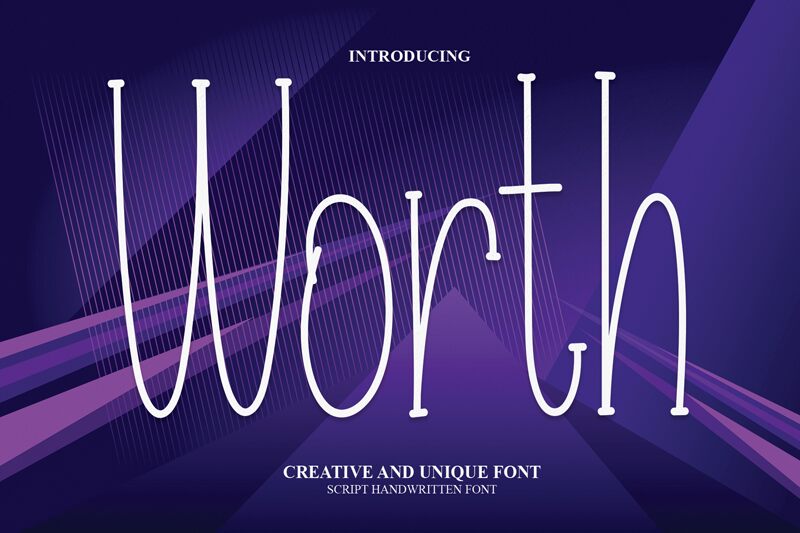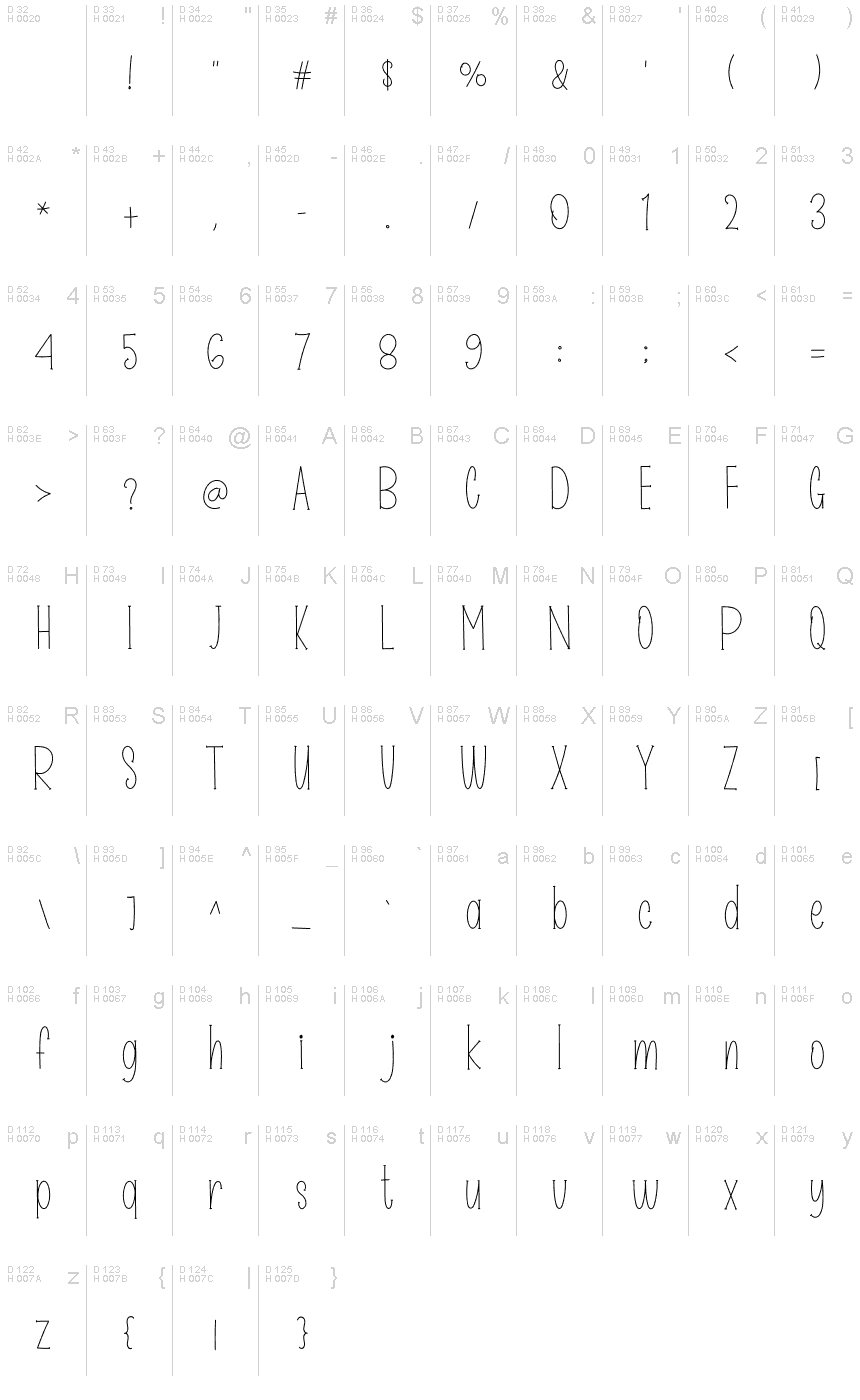
Worth
Looking for a font that's equal parts refined and whimsical? Look no further than Worth, the extra-light, extra-condensed handwritten typeface from Belina Studio. With its delicate curves and playful flourishes, this font is perfect for adding a touch of elegance to any project without sacrificing personality. Its narrow width makes it especially well-suited to titles and headlines, while its airy weight ensures that it won't overpower your message. Use it on everything from wedding invitations to food packaging to give your designs an extra dose of charm.
the latest style letters are perfect for wall displays, wedding invitations, social media post logos, advertisements, product packaging, product designs, labels, photography, watermarks, invitations, stationery, and any project that requires taste handwriting.